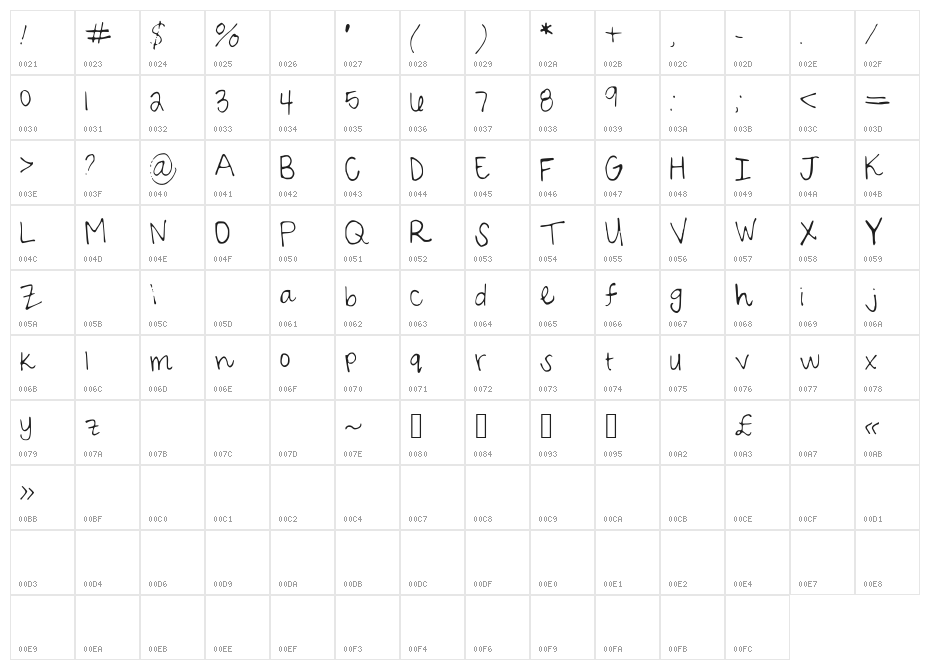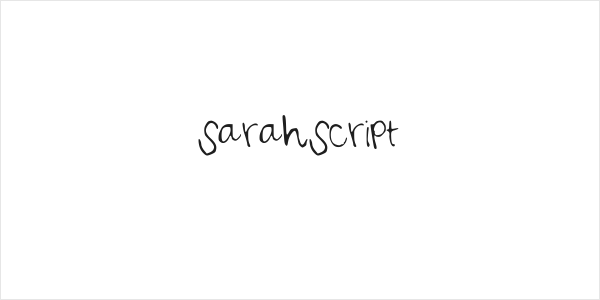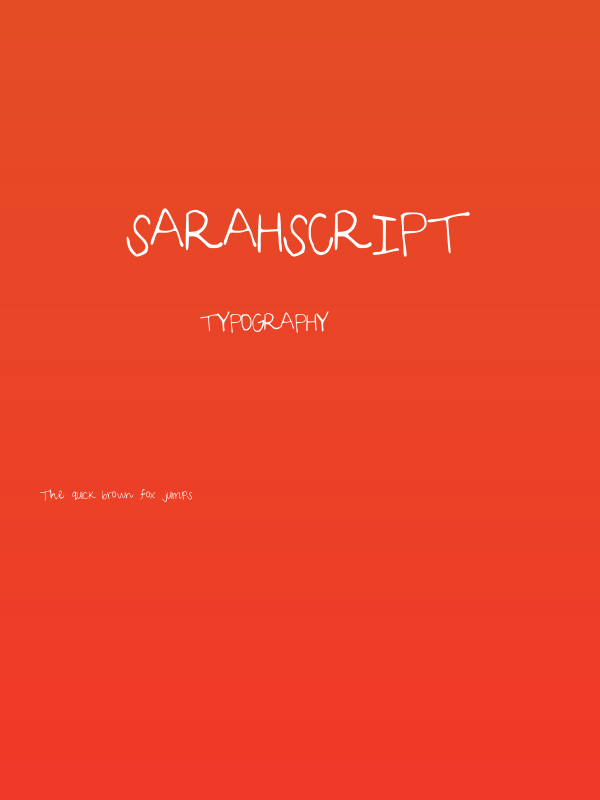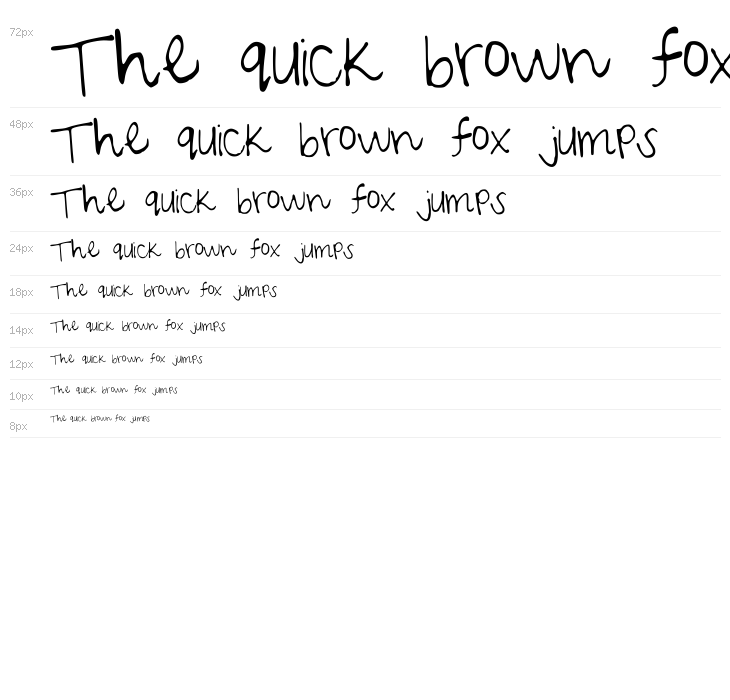
SarahScript Font
| Gesamtstil | Casual |
| Anwendungsfall | Logos, Invitations, Greeting Cards |
| Vorgeschlagene Projekte | Ideal for greeting cards, invitations, personal branding, and creative projects that require a friendly and approachable aesthetic. |